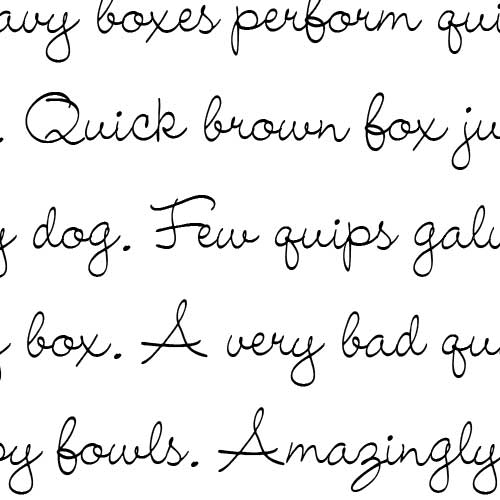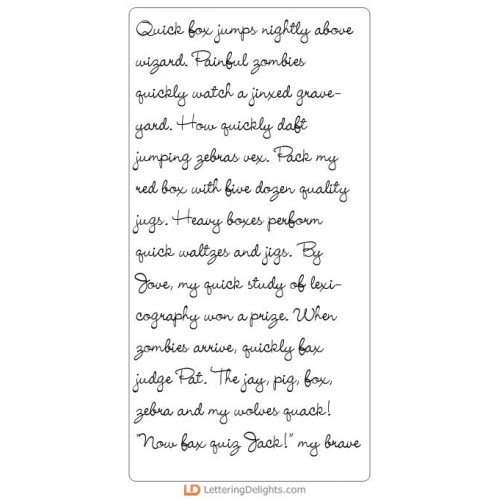
LD Charming - Font
Here's a stylishly simplistic choice that's sweet and charming. Great for invitations, homemade greeting cards, newsletters, or journaling.